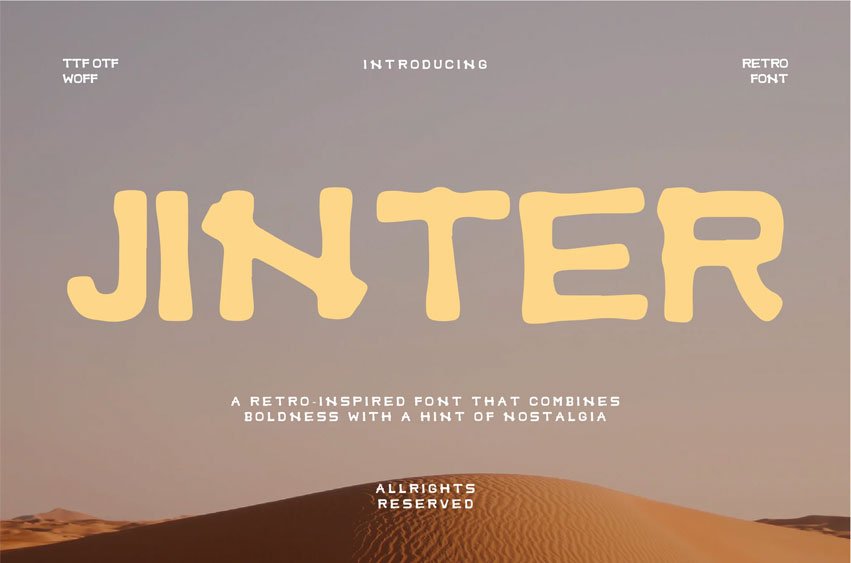
Jinter Font is a retro-inspired font that combines boldness with a hint of nostalgia, creating a strong visual impact.
Its clean, angular shapes are balanced with subtle curves, giving it a distinctive, modern edge while paying homage to vintage typography.